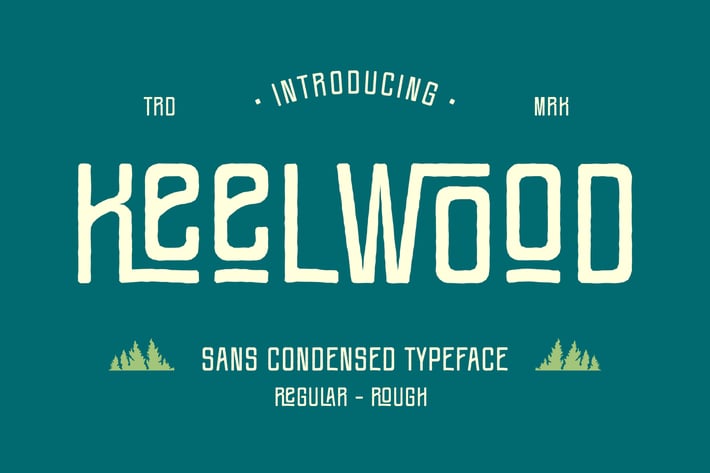
Keel Wood - Sans Condensed Font
Keel Wood - Sans Condensed Font contains a lowercase, uppercase, symbol, and also supports multi-language. There’s a lot of ligature in this font. Keel Wood - Sans Condensed Font also comes with ligatures, stylistic alternates, and many more.
this font is suitable for fashion, branding, catalog, and other designs that you want.